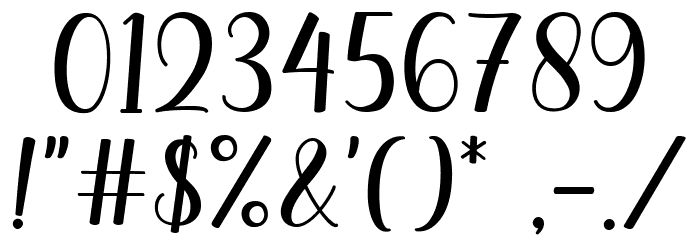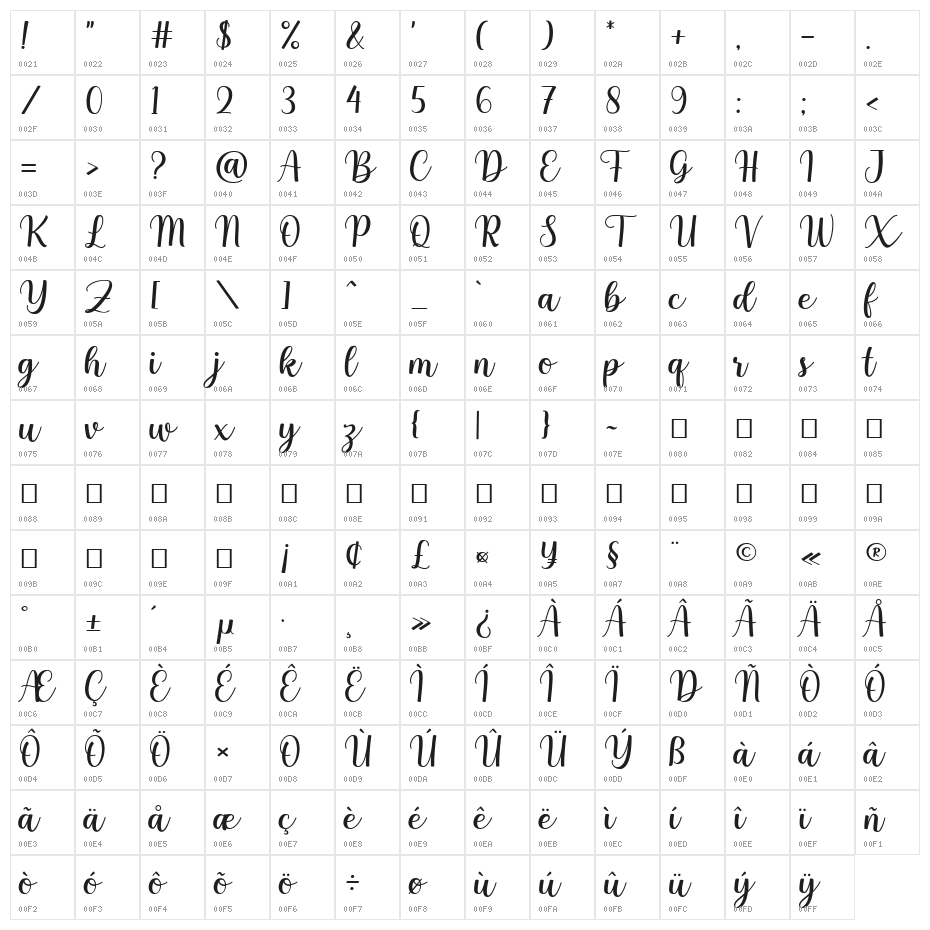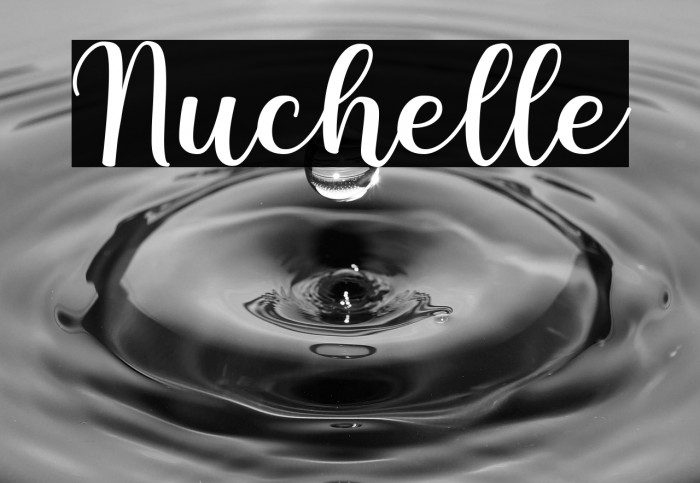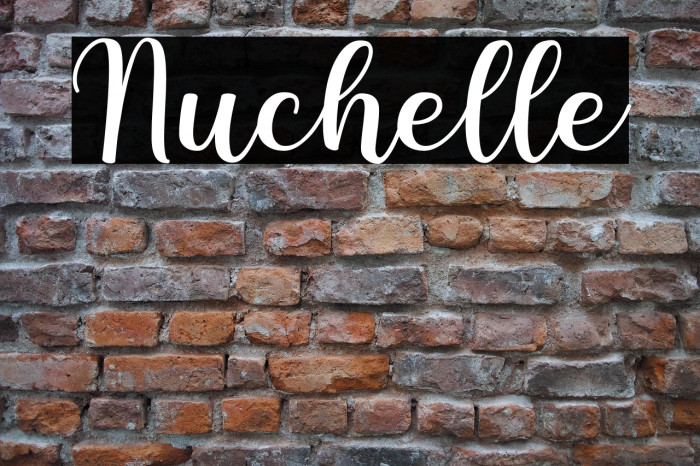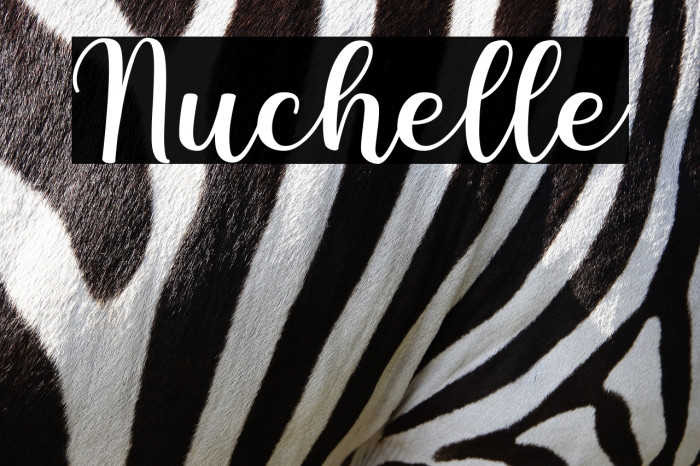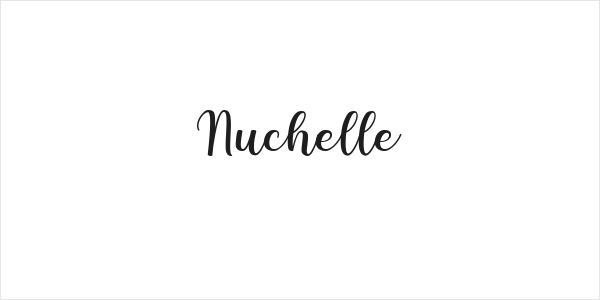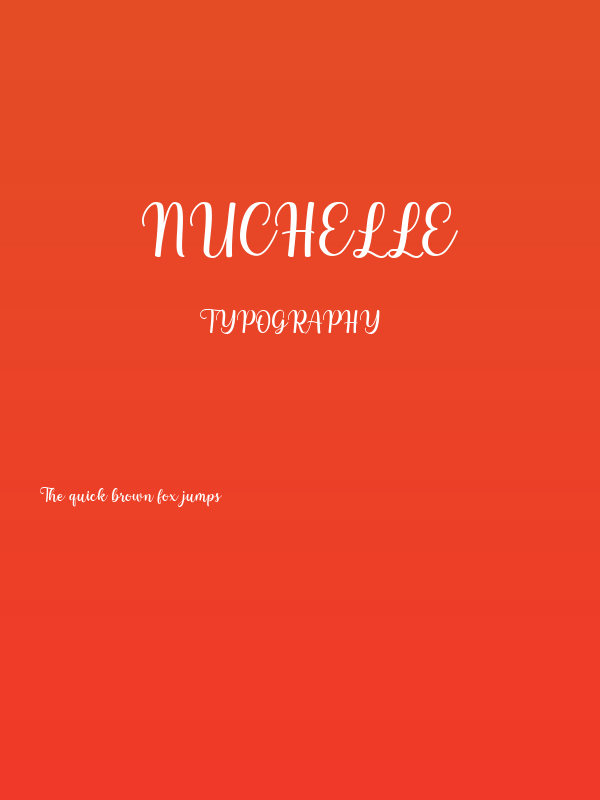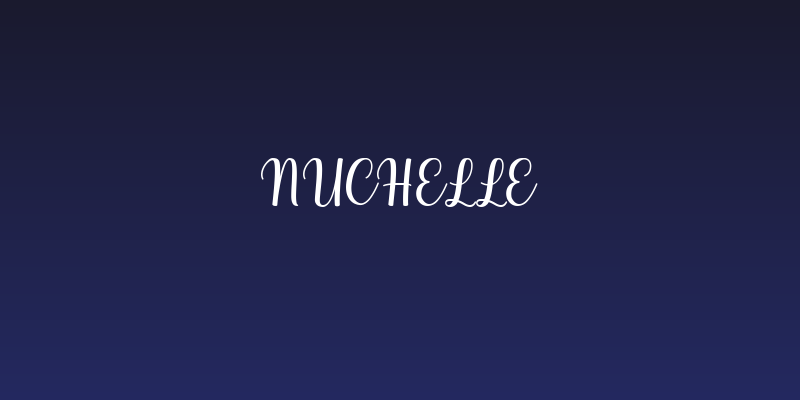
Nuchelle Font
Nuchelle Description
This font features an elegant, flowing script style that combines both uppercase and lowercase letters with a sense of fluidity and grace. The uppercase letters are tall and slender, with gentle curves and loops that add a touch of sophistication. The lowercase letters maintain a consistent style, with smooth transitions and rounded edges that create a harmonious appearance. The numerals are clear and easy to read, with a slight slant that complements the overall script style. Special characters are designed with the same attention to detail, ensuring a cohesive look across all elements. This font is perfect for projects that require a touch of elegance and style, such as wedding invitations, branding, and decorative headings.
| Overall Style | Elegant, Sophisticated |
| Use Case | Headlines, Invitations, Branding |
| Proposed Projects | Ideal for wedding invitations, branding, decorative headings, and elegant stationery. |